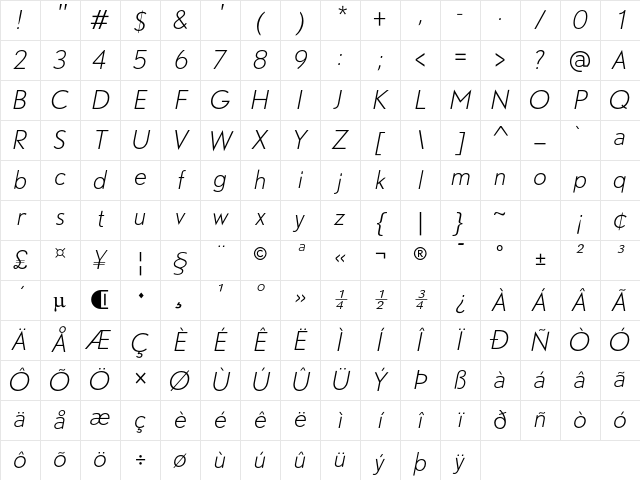
DTL Nobel T Light Italic
Style: T Light Italic
Design Context for DTL Nobel
DTL Nobel is a composed and adaptable typeface that performs quietly and consistently across a wide range of design contexts. The slanted form adds forward momentum and visual energy. Its slender proportions lend an understated elegance to any composition.